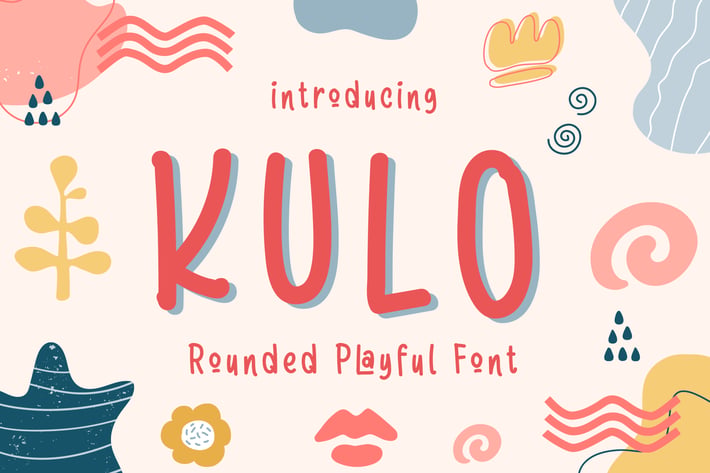
Kulo - Rounded Playful Font
Kulo is a Rounded Playful font. This font is perfect for display or children themed designs, so add it to your creative ideas and notice how it makes them stand out!
– Lowercase
– Alternates
– Ligature
– Multilingual Support